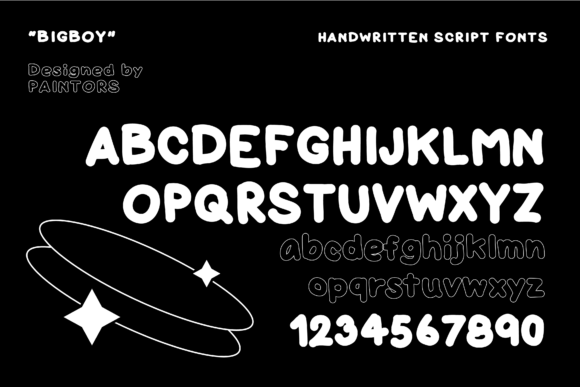
Bigboy is a whimsical and playful bold font that brings a touch of quirky charm to any design. This font adds a delightful sense of fun and energy to your projects. Perfect for headlines, posters, and children’s materials, is sure to capture attention and put a smile on your audience’s face. Let your creativity run wild with this delightful and vibrant typeface!
Bigboy Font